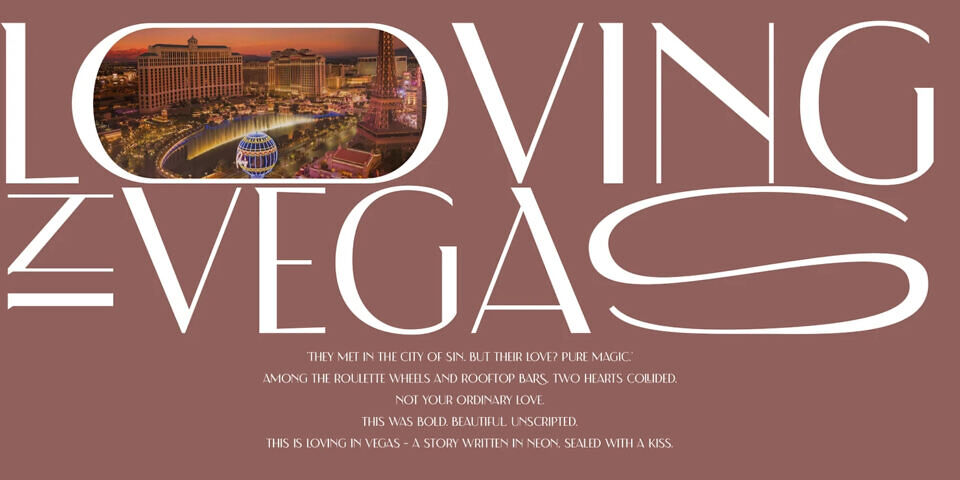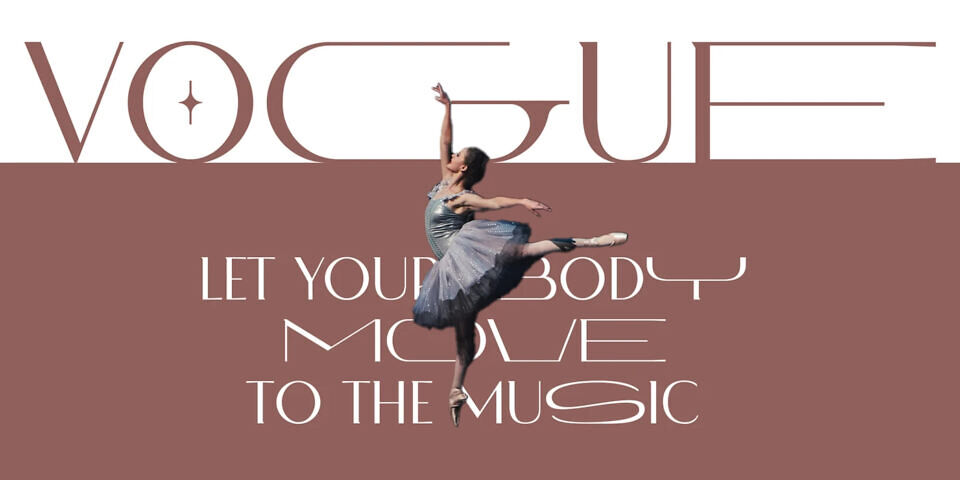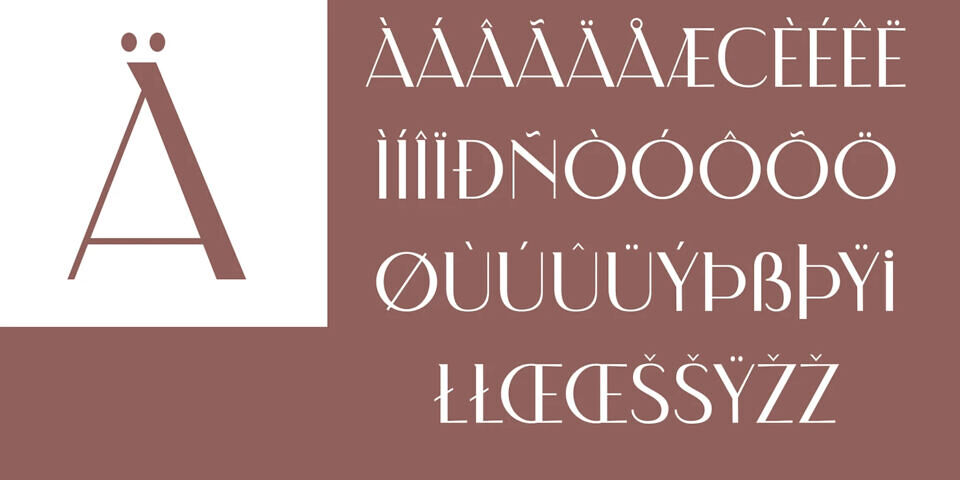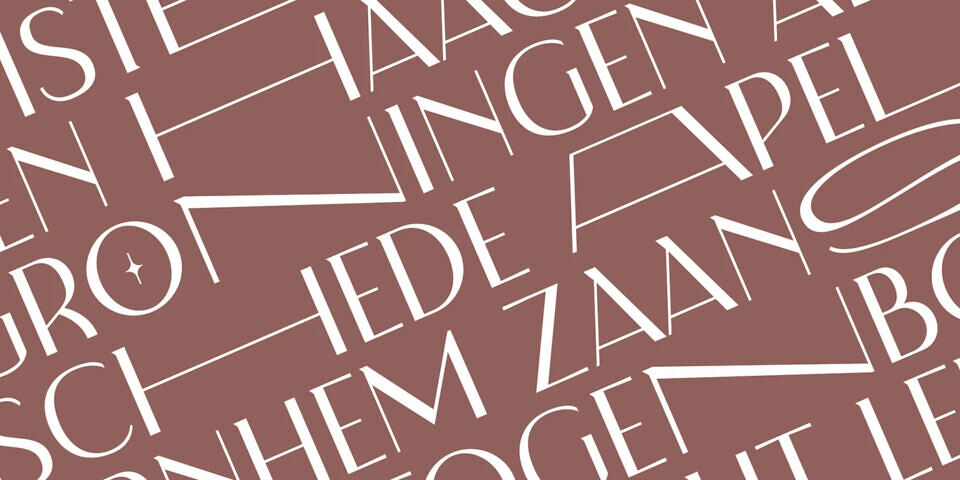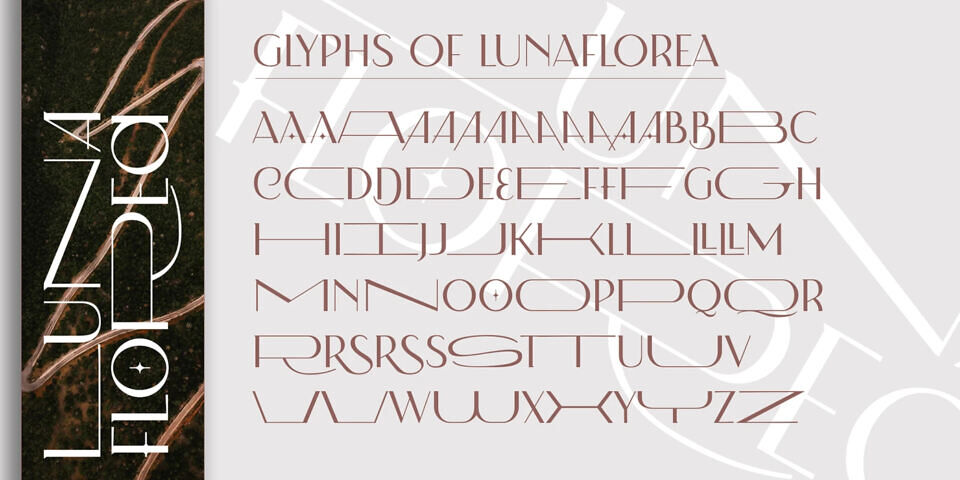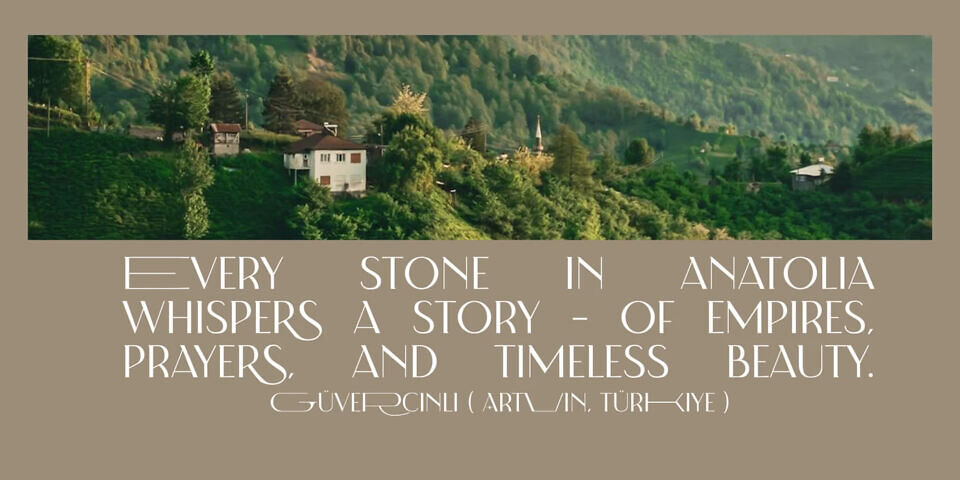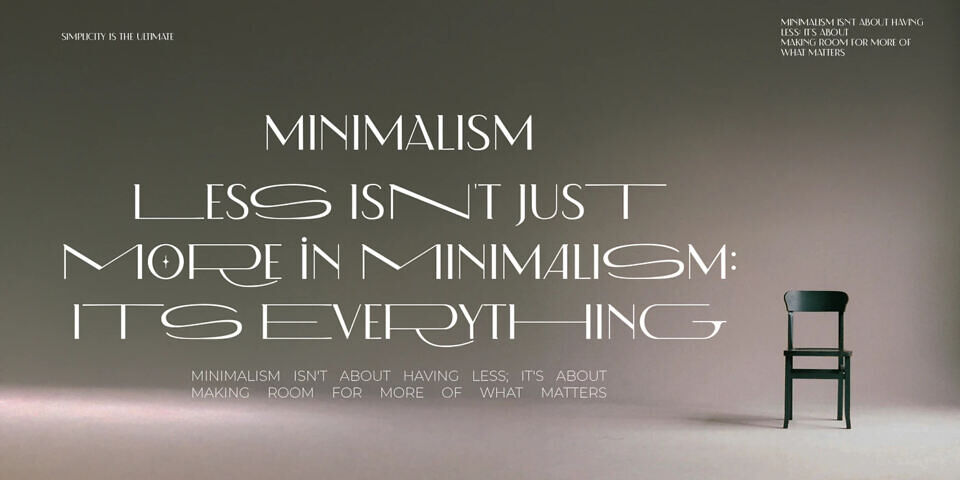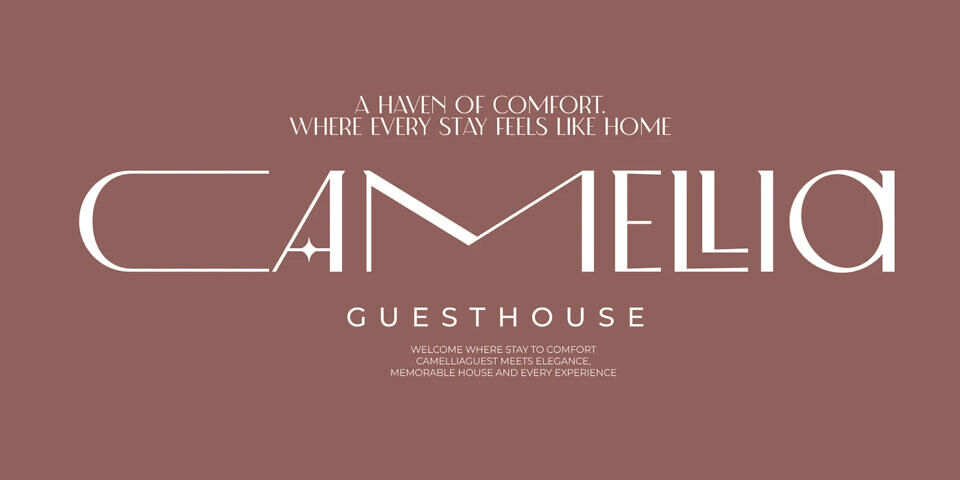
Luna Florea Font
Luna Florea is an elegant serif typeface inspired by 18th-century Didone. It has mixed uppercase and lowercase letters that share the same height and allows infinite combinations to give your project a unique style.
Luna Floreais well-suited for posters, branding, logotype, headlines, titles and editorial design. Give your project a touch of luxury and class.